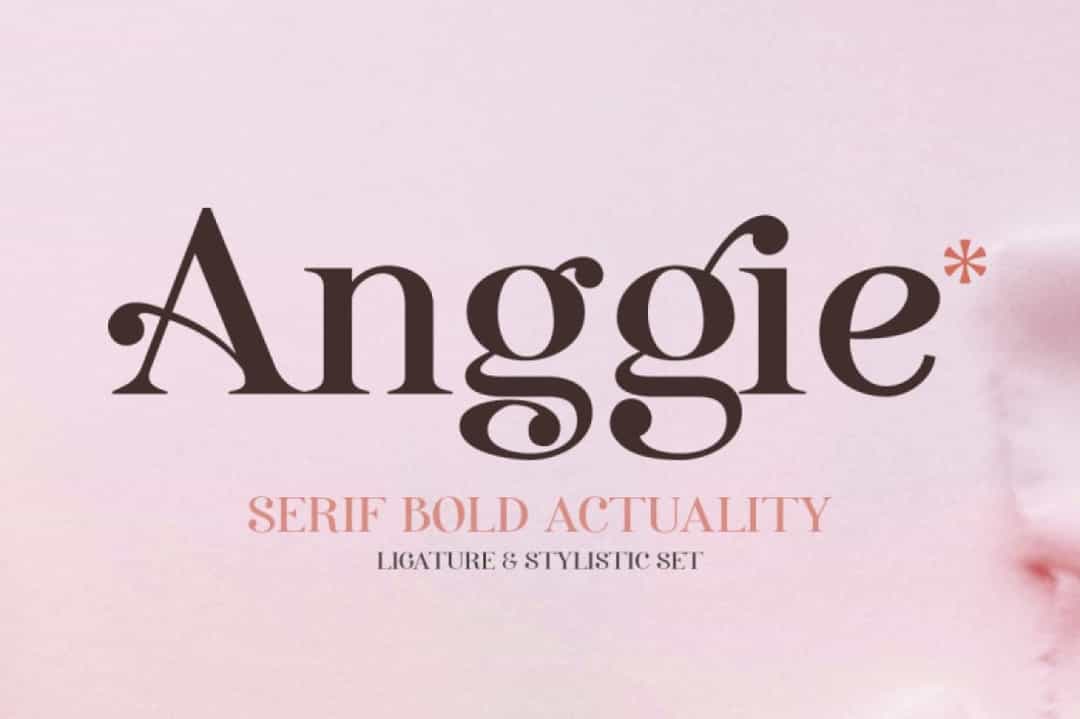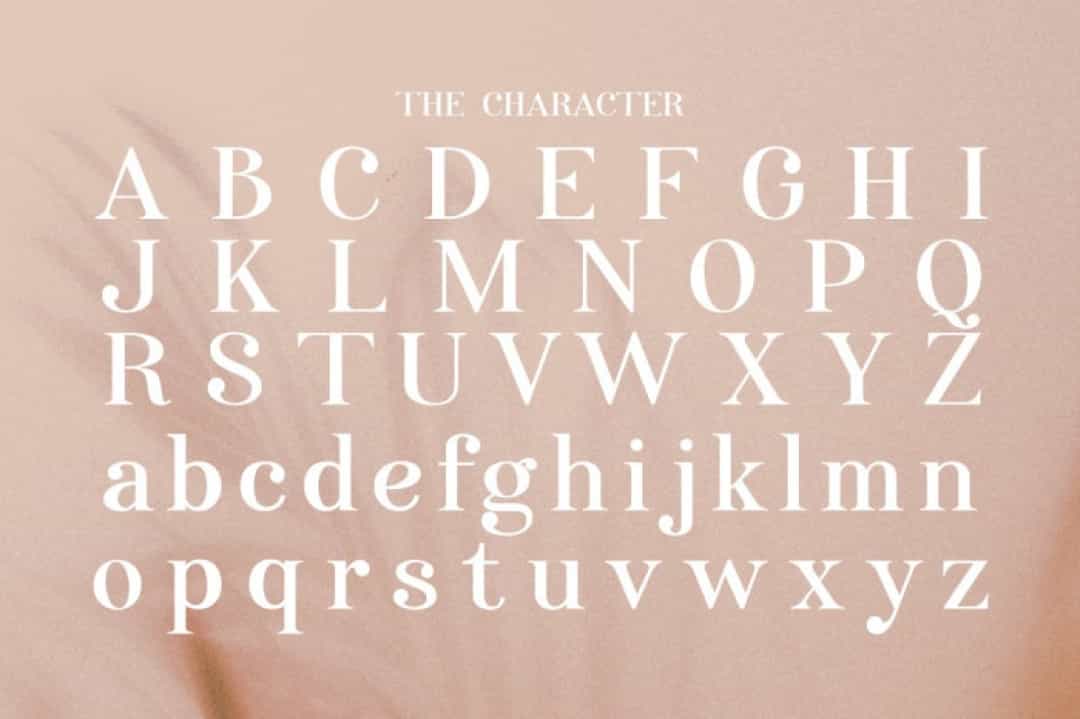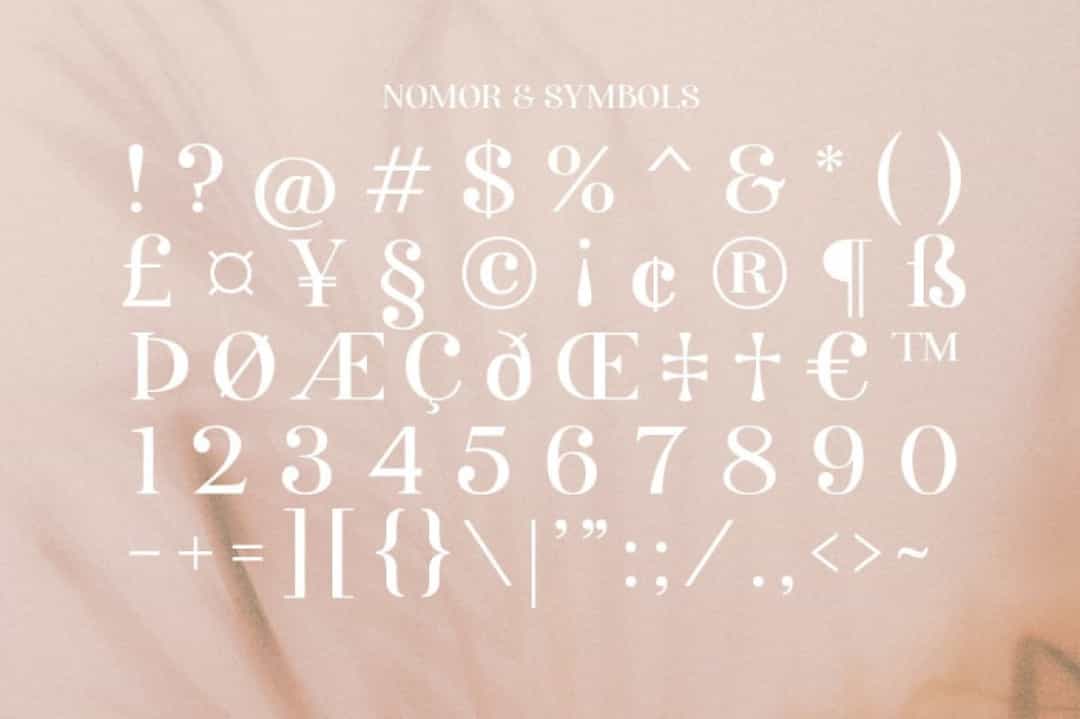
Anggie can be described as a luxurious serif typeface with a timeless design and perfect style, inspired by today’s stunning serif display. Its font features are well balanced, varied, hefty yet light enough for luxury and elegance; making Anggie an excellent choice for branding, logotypes, marriage invitations, romance cards packaging labels alcohol labels spelling of names among many other uses.